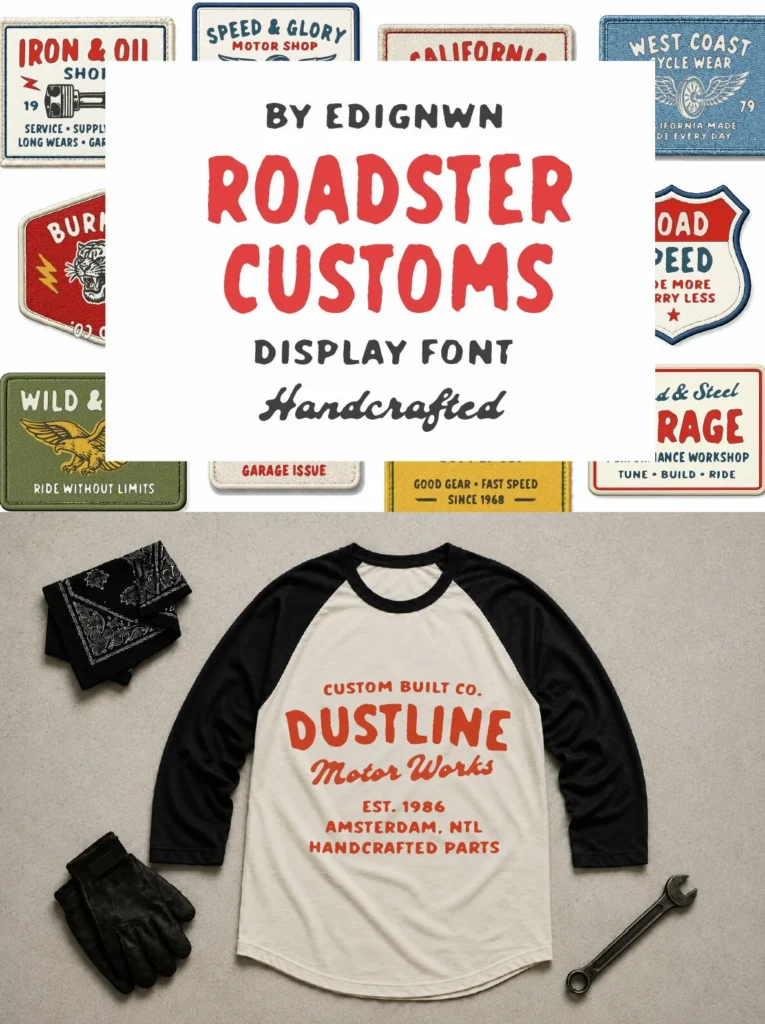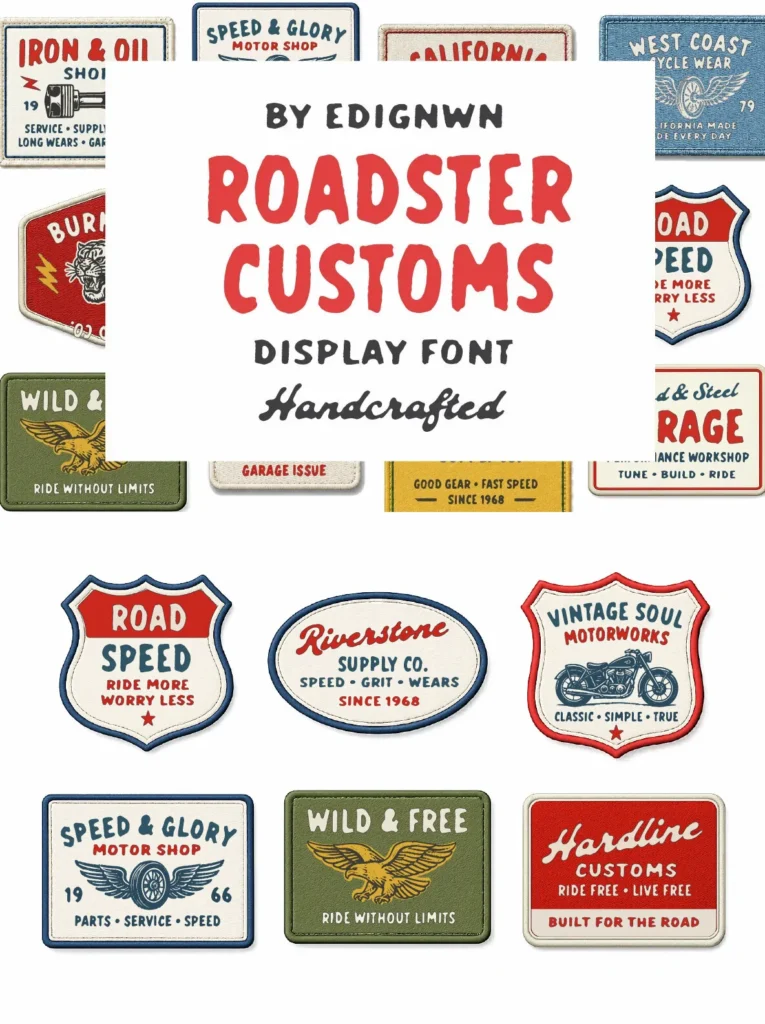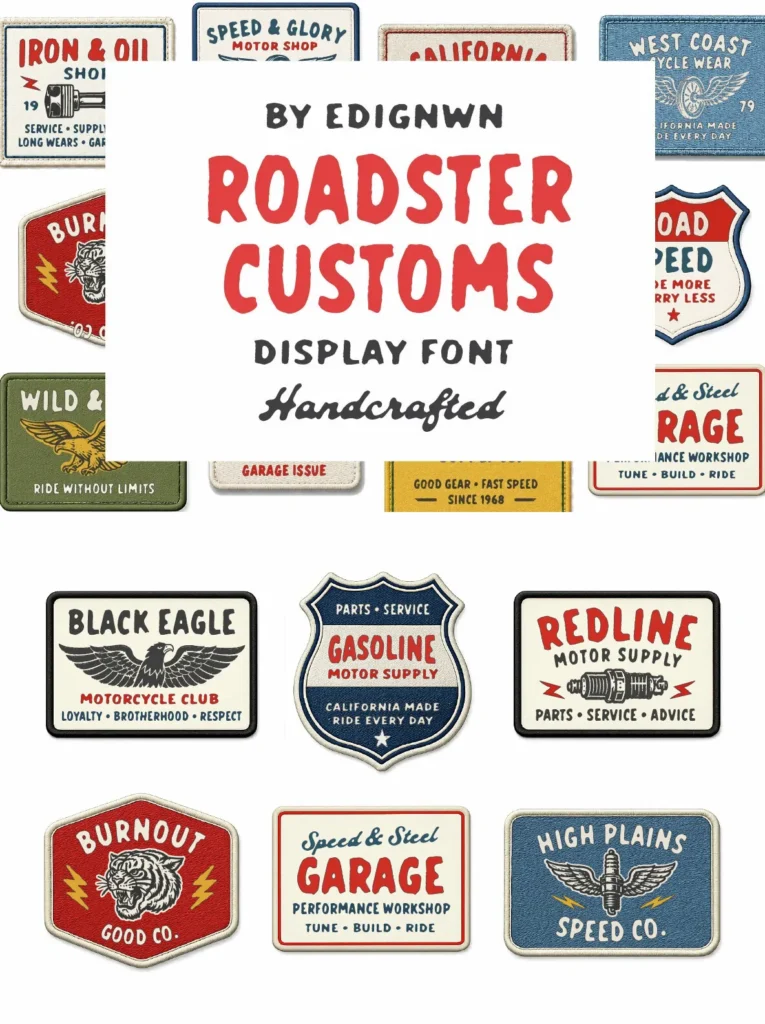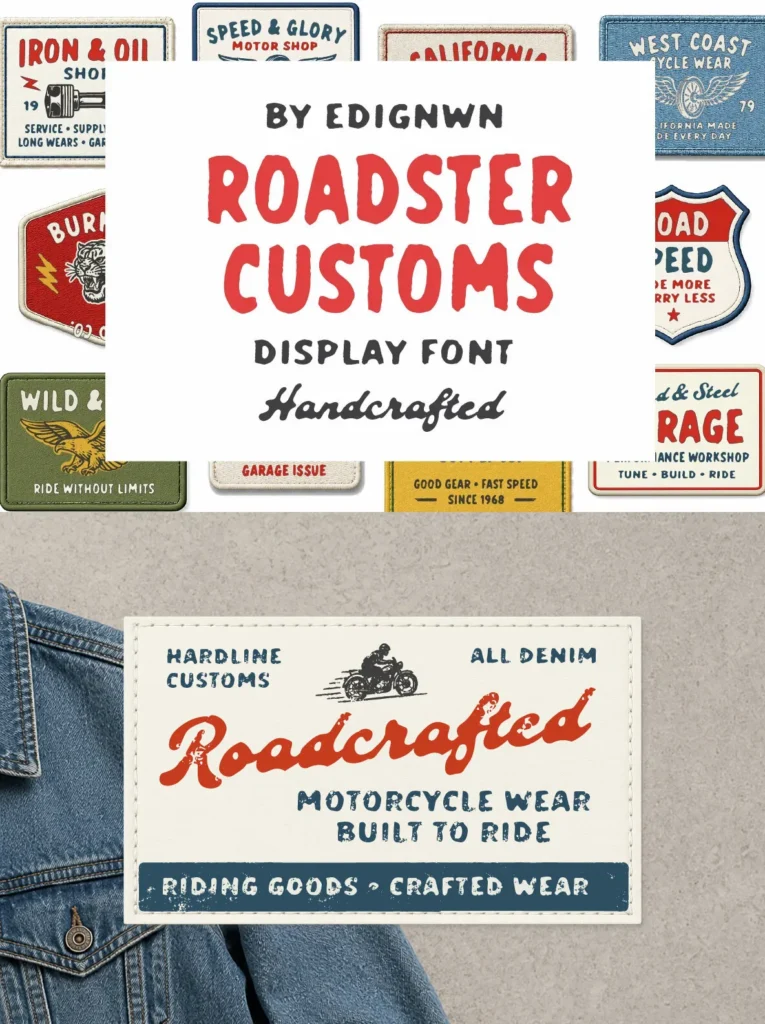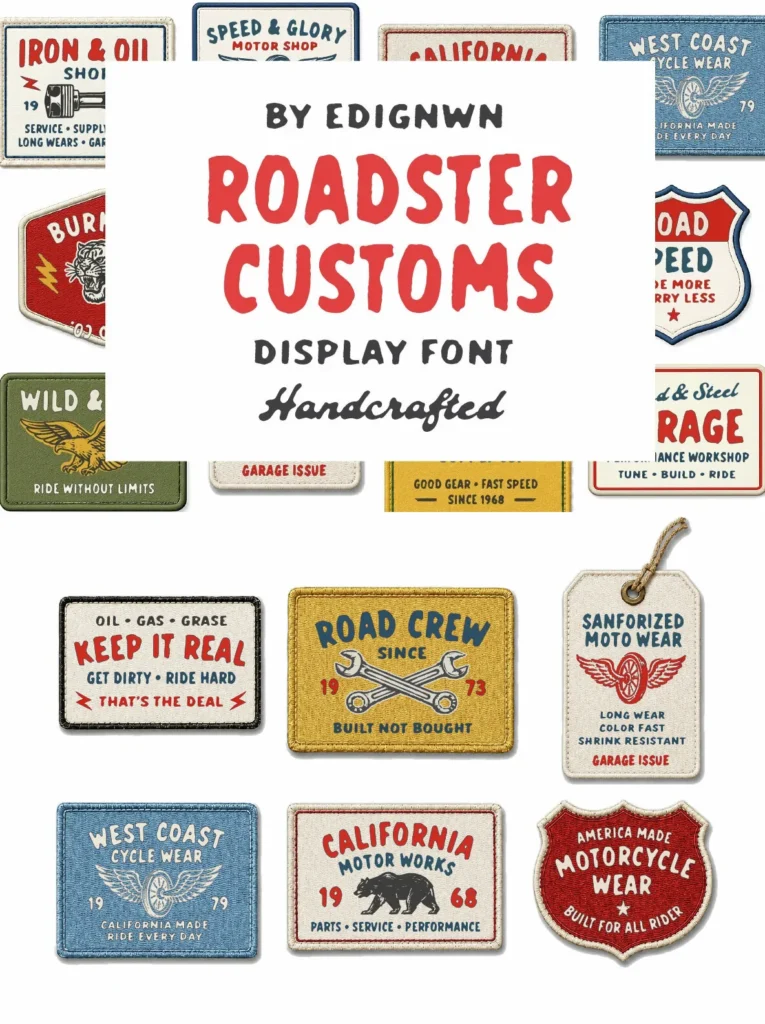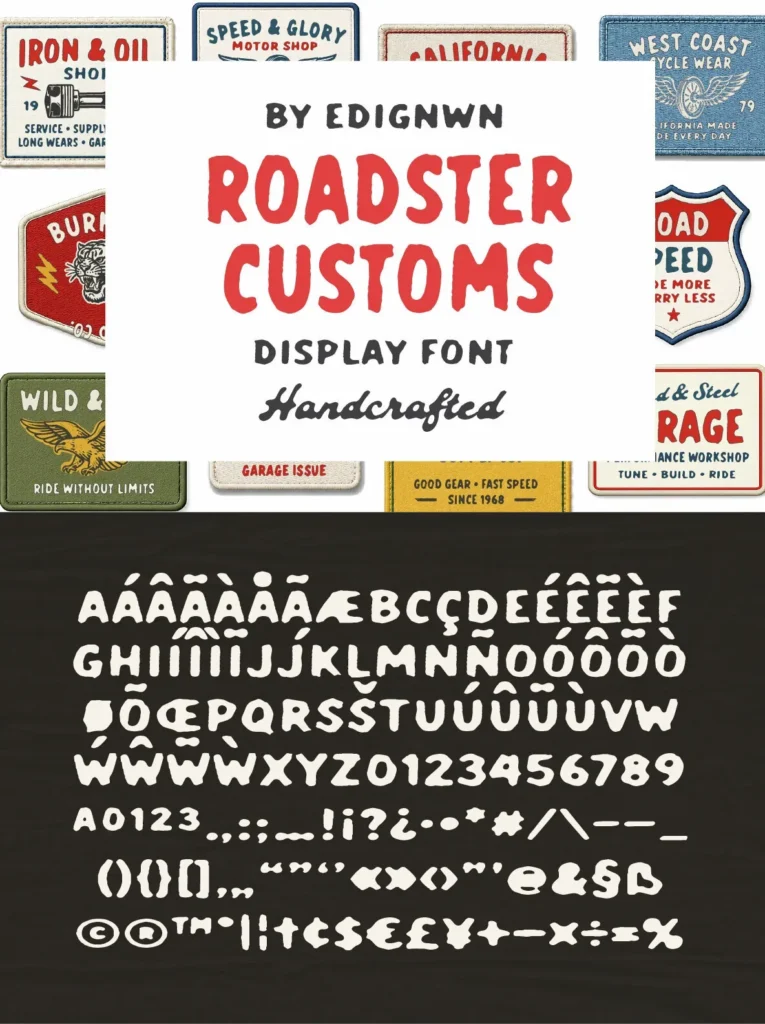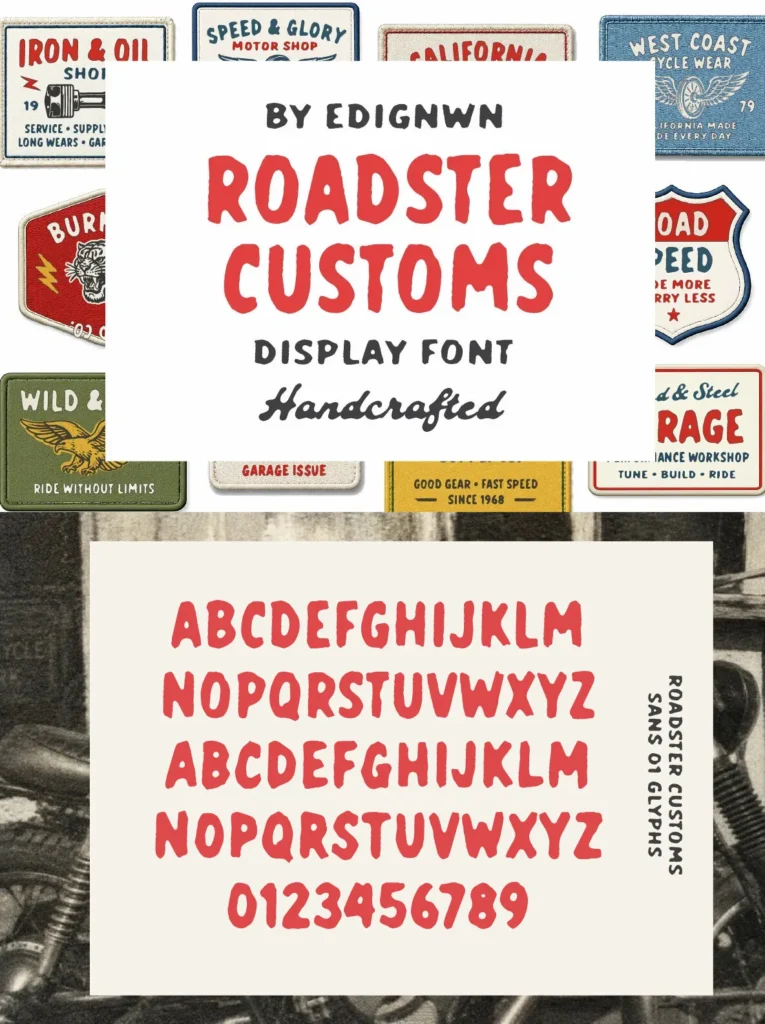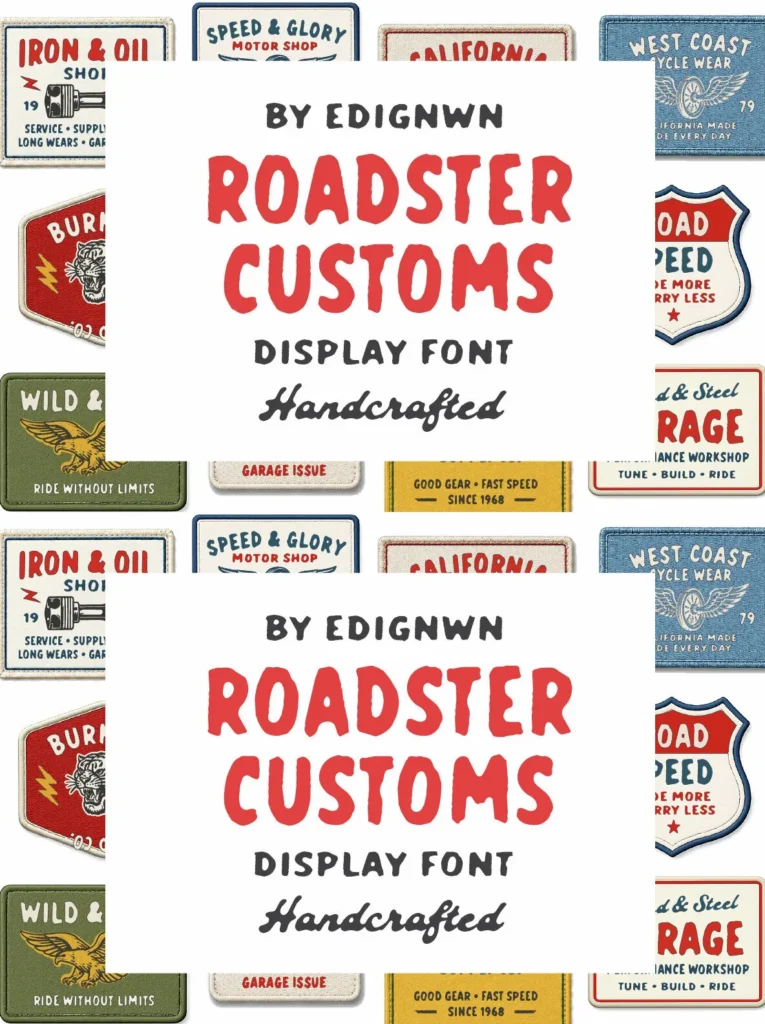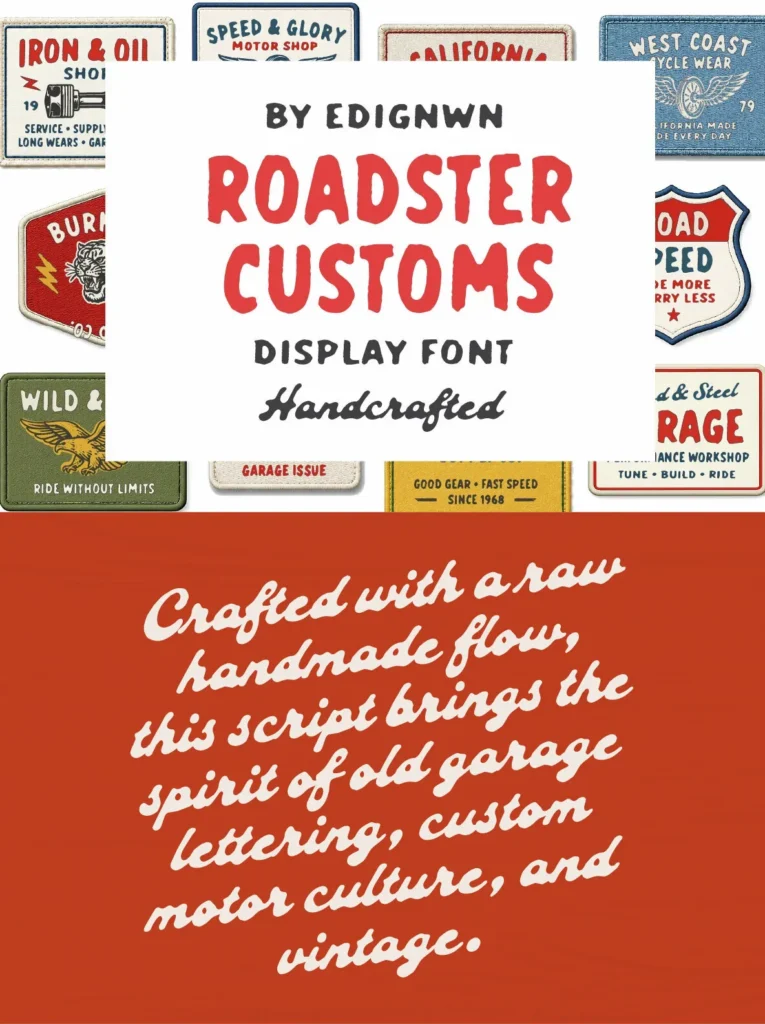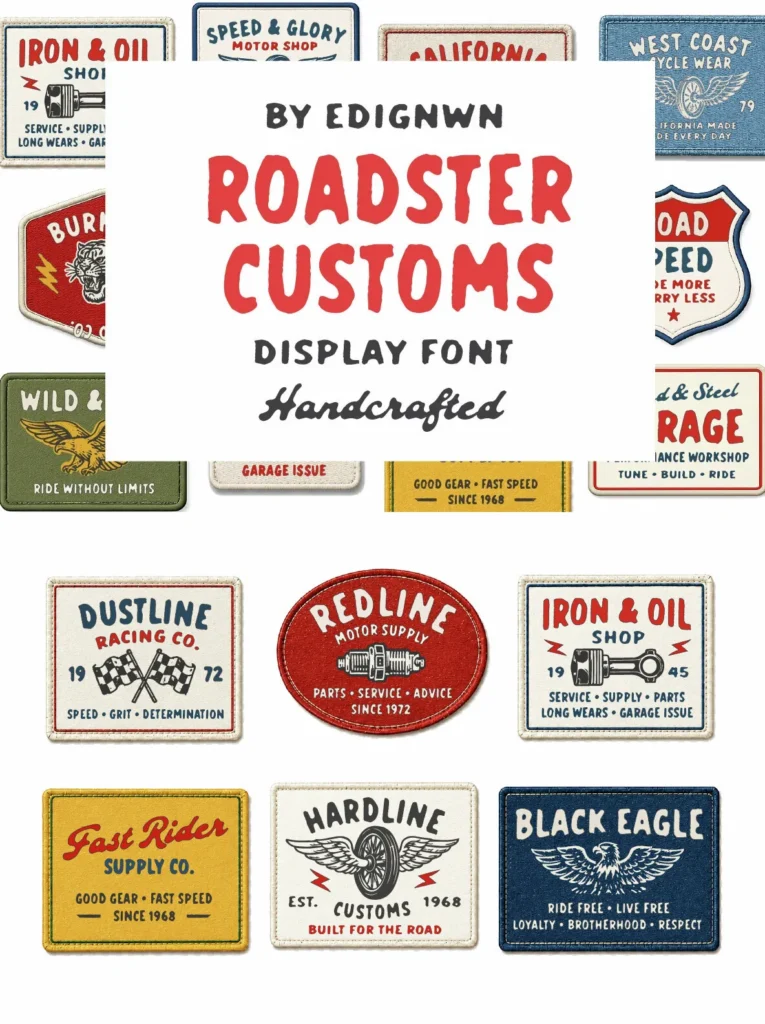
Roadster Customs — Garage Lettering with Grit
Roadster Customs is a handcrafted display font with a raw garage lettering feel. It is made for visual branding designers working on vintage apparel, patch designs, garage identities, motor club graphics, and handcrafted goods. The family brings a bold, custom-built spirit to projects that need strong character and an authentic motorcycle culture tone.
The script style has a strong handmade flow with old garage charm, while the two sans styles add rugged supporting type for badges, labels, posters, logos, packaging, and apparel graphics. With both Regular and Textured styles included, Roadster Customs gives designers room to create clean brand visuals or distressed vintage designs with confidence and consistency.
Roadster Customs Includes
3 typefaces (Roadster Customs Script, Roadster Customs Sans 01, and Roadster Customs Sans 02)
2 styles for each typeface (Regular & Textured)
Uppercase, lowercase, numeral, symbol, punctuation, alternate and ligature in Roadster Customs Script
All-caps, numeral, symbol and punctuation in Roadster Customs Sans 01, and Roadster Customs Sans 02
Multilingual support